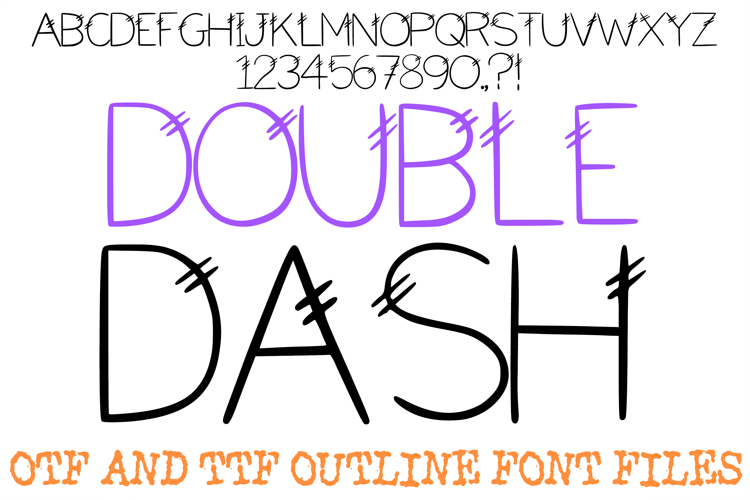
Double Dash Alphabet Lettering Font Handwriting ABC OTF
Embrace a beautifully understated, rustic minimalism with the Double Dash Font. This exceptionally clean display typeface features slender, hand-drawn letterforms decorated with a signature artistic detail: a pair of tiny, slanted double dashes crossing over a primary stem or curve on every letter and number. Perfectly balancing a modern, skinny aesthetic with a cozy, hand-crafted feel, this alphabet evokes the look of delicate embroidery stitches, organic tally marks, or fine-line sketches. It is an outstanding selection for layouts that require a subtle, creative, and highly customized touch.
Delivered as an installable typeface, this minimalist vector structure offers incredible versatility for layering. It acts as a wonderful resource for a designer who wants to pair these delicate lines with soft textured backgrounds, apply contrasting watercolor paint effects, or feature the crisp black linework against bright, solid tones. The thin, geometric anatomy scales flawlessly across all creative editing platforms, guaranteeing sharp, refined results for digital graphics and print media.